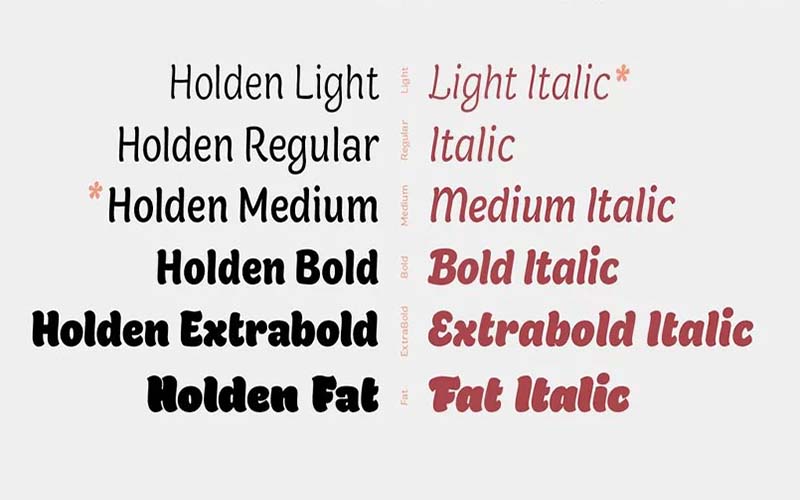
Holden Font is a fancy, various typeface. It is a fresh new, soft bold, and free font ideal for logo design and makes a great display headline font. It is featured with rounded edges that make it clean and visual.
That family was designed in 2018 for Zetafonts by Cosimo Lorenzo Pancini. The family includes six versions of light, light italic, medium, fat, bold, and Extra bold in a wide range of weights, making it cute and eye-catching.
It has a fancy elegant look because the whole structure is created with an extra thick stroke as well as a jiggly appearance. Its structure is designed to be bold. The team of designers working on it deserves praise for creating this beautiful font.
All of the letters have their unique styling with perfect recruitment, among the features of advanced text ability. For more information on its structure, see the font map images we have included here.
Holden Font
Its height is almost the same as the standard size while the space between the letters is a little bit. But it is easily used for small to large designs. But you should only use it for large text.
You can use it in a variety of creative projects, such as posters, hoardings, banner displays, movie titles, logos, social media tasks, games texture, business, invitation or wedding cards, labeling, and other related operations.